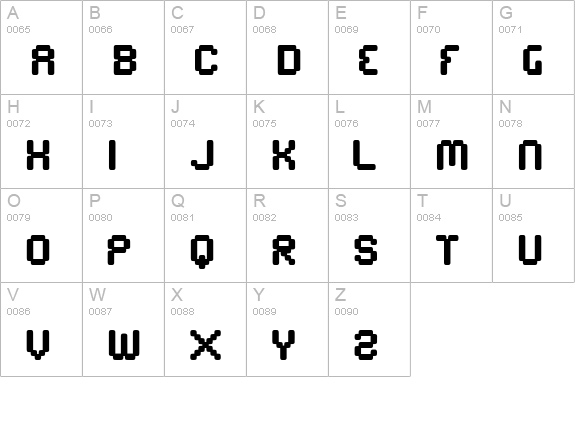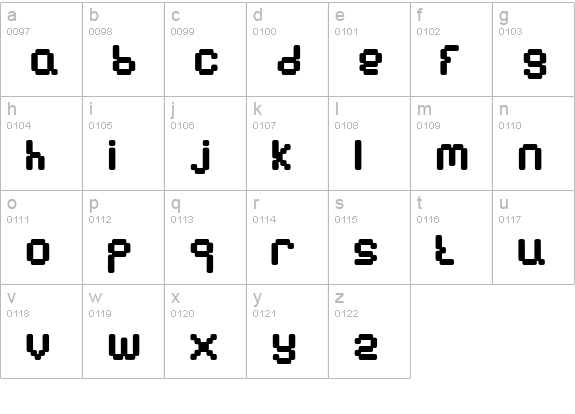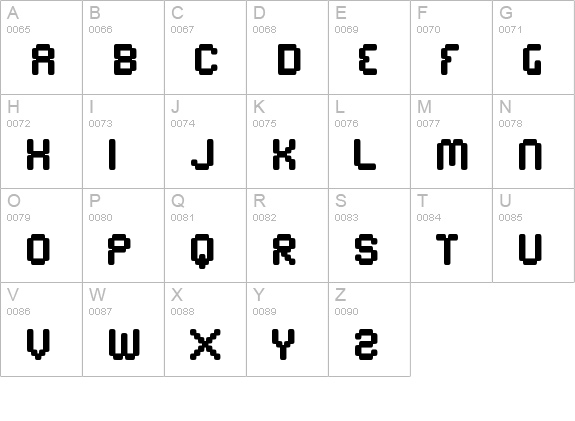
BN Emulator Font Details
The BN Emulator font is a sleek and modern typeface perfect for adding a touch of sophistication to any project. With its clean lines and sharp edges, this font exudes a sense of professionalism and elegance. Whether you're designing a logo, creating a website, or working on a print project, the BN Emulator font is sure to make a statement. Best of all, the BN Emulator font is available for free download at FontsMarket.com. This means you can access this stylish font without breaking the bank. Don't miss out on the opportunity to elevate your designs with the BN Emulator font - download it for free today!